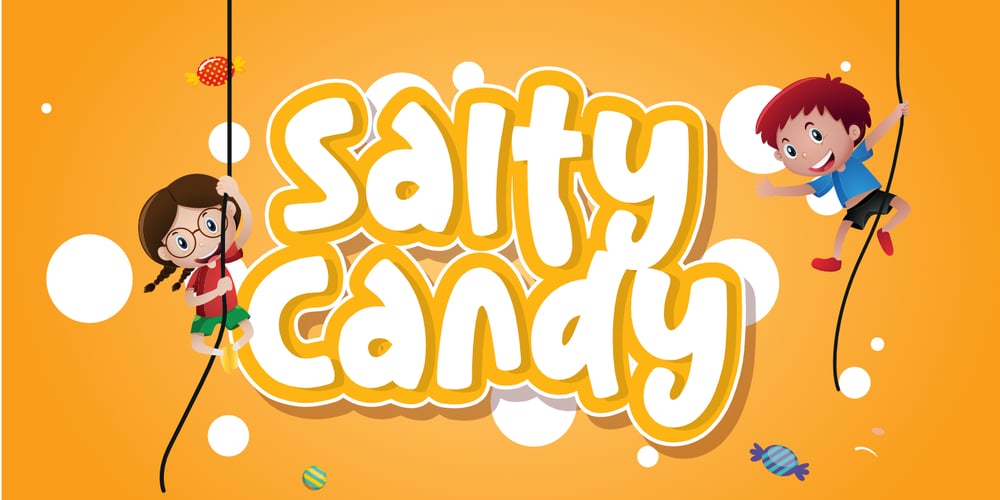
Salty Candy Font Family was designed by Toni Dzulham and published by Dumadi. Salty Candy contains 1 styles and family package options. Salty Candy is a children’s font with a cheerful and happy impression. This simple font will make the ordinary one extraordinary that can be collaborated with design projects such as children’s t-shirt design, children’s web design, logos, event titles, and others. try to feel this font with your design filled with color it will be even more amazing.